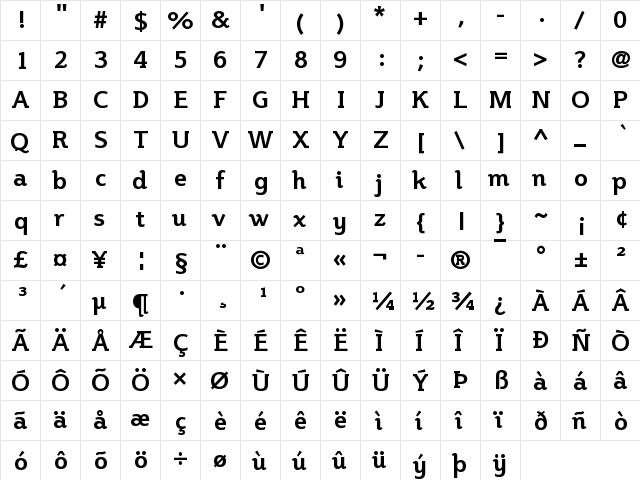
Plume DaMa Bold
| Foundry | Dalton Maag Ltd. |
| Designer | Dalton Maag Ltd. |
Design Context for Plume DaMa Typeface
Plume DaMa offers clean, dependable letterforms without strong stylistic allegiance, making it a practical choice for designers who need flexibility. Its bold stroke weight gives it real presence on the page.